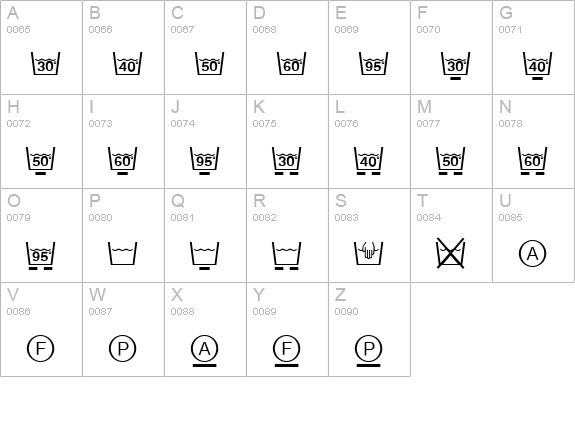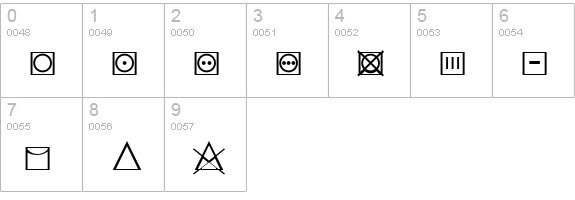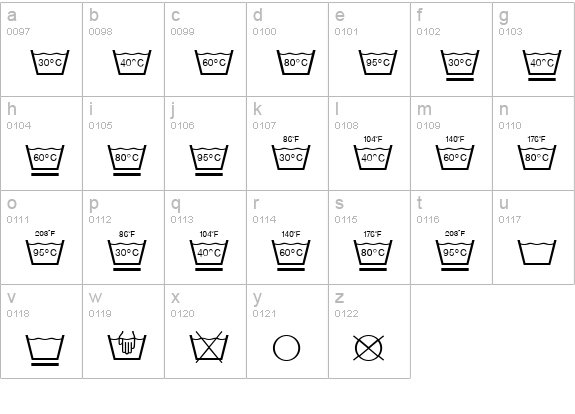
Textile LH Pi One Font Details
Introducing the stunning Textile LH Pi One font, a perfect blend of elegance and sophistication. This remarkable typeface is designed to capture attention and leave a lasting impression on any design project. With its intricate details and exquisite craftsmanship, Textile LH Pi One stands out as a true work of art. The delicate curves and precise lines create a sense of refinement, making it ideal for high-end branding, editorial layouts, and luxurious packaging. What sets Textile LH Pi One apart is its versatility. It effortlessly adapts to various design styles, from classic to contemporary, ensuring that your creative vision comes to life with the utmost grace and flair. But that's not all – Textile LH Pi One is also free! Yes, you read it right. This exceptional font is freely available to download at FontsMarket.com. Now, you can enhance your projects with this exceptional font without breaking the bank. Whether you're a seasoned designer or an aspiring artist, Textile LH Pi One offers endless possibilities. Its timeless beauty and eye-catching presence will elevate your designs to new heights, making them truly unforgettable. So, don't miss out on this incredible opportunity. Embrace the beauty of Textile LH Pi One and let your creativity soar. Download it today from FontsMarket.com and witness the transformative power of this remarkable font.